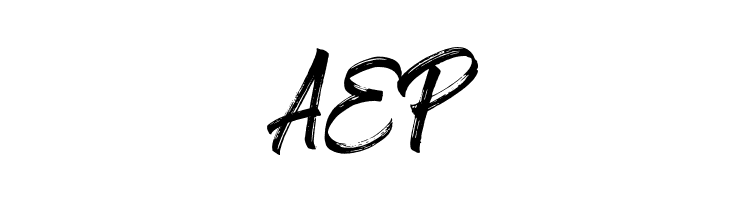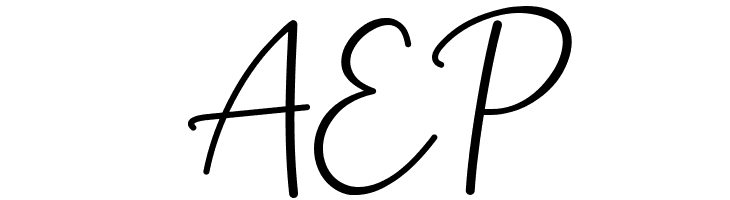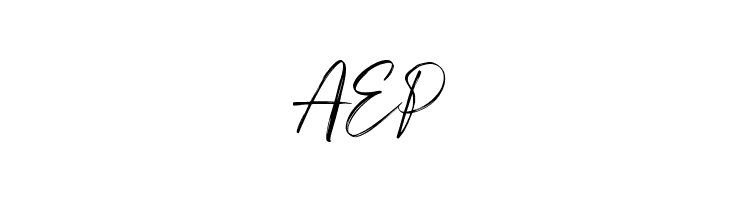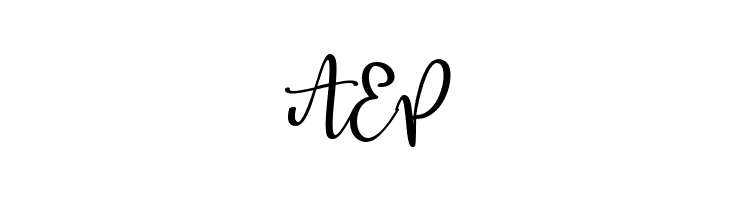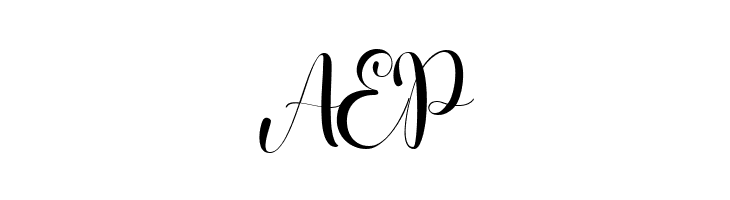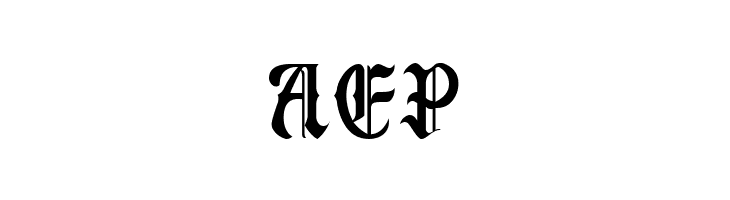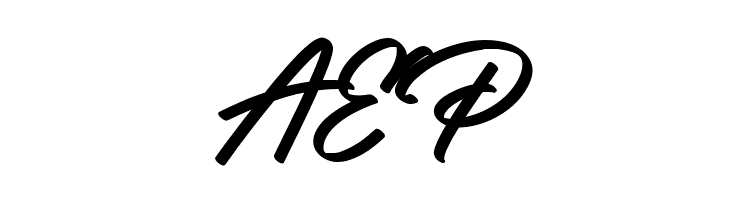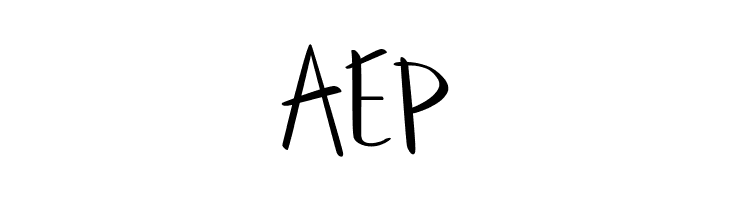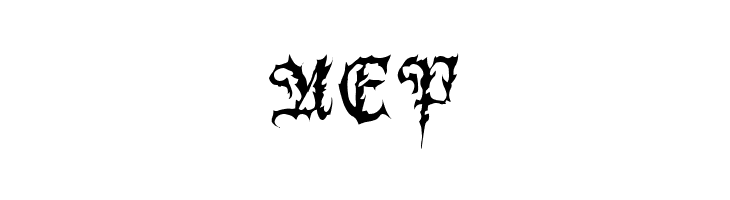
( Fonts by exe.vis.ne.jp ) A tall, narrow, hand-drawn font with thin, elongated strokes. Download 211 Downloads@WebFont
( Fonts by exe.vis.ne.jp ) A playful, hand-drawn font with tall, narrow letterforms and a whimsical style. Download 823 Downloads@WebFont
( Fonts by AEN Creative Studio - Personal-use only. For commercial use please contact owner. ) A graceful calligraphic font with elegant, flowing strokes. Download 70 Downloads@WebFont
( mlkwsn - Malik Wisnu ) A bold, geometric font with sharp angles and a modern aesthetic. Download 85 Downloads@WebFont
( Fonts by Letterena Studios - letterena.com - Personal-use only. For commercial use please contact owner. ) A bold, high-contrast serif font with a classic yet modern style. Download 29 Downloads@WebFont
( Fonts by Slametype - Galih Aprilia - Personal-use only. For commercial use please contact owner. ) A bold, flowing script font with elegant, cursive letterforms. Download 49 Downloads@WebFont
( Fonts by Gilar Studio - Personal-use only. For commercial use please contact owner. ) An elegant script font with ornate flourishes and high contrast strokes. Download 71 Downloads@WebFont
( Fonts by Yoga Letter ) A bold, decorative font with star-filled characters, perfect for playful designs. Download 97 Downloads@WebFont
( Annie Cresta ) A playful, hand-drawn font with an energetic and whimsical style. Download 80 Downloads@WebFont
( Fonts by Damarletter - Ardian Nuvianto - Personal-use only. For commercial use please contact owner. ) A modern, cursive font with interconnected letters and dynamic strokes. Download 67 Downloads@WebFont
( Jaime Rangel Castro ) A playful, handwritten font with whimsical curves and decorative elements. Download 3054 Downloads@WebFont
( Fonts by a Max Infeld - XEROGRAPHER FONTS - xerographer.blogspot.com . Personal-use only. For commercial use please contact owner. ) A bold, textured font with a distressed, grunge-like appearance. Download 176 Downloads@WebFont
( Fonts by Kurnia Setyadi ) A playful and bold font with exaggerated curves and a whimsical style. Download 235 Downloads@WebFont
( Fonts by Allouse Studio - Personal-use only. For commercial use please contact owner. ) A dynamic and elegant script font with fluid, sweeping strokes. Download 73 Downloads@WebFont
( Fonts by www.junkohanhero.com - Personal-use only. For commercial use please contact owner. ) A bold, distressed font with a vintage, industrial feel. Download 149 Downloads@WebFont
( Fonts by Prioritype Co - Prio Nurokhim Aji - Personal-use only. For commercial use please contact owner. ) A flowing, cursive script font with elegant, sweeping strokes. Download 64 Downloads@WebFont
( Fonts by Rochadi Sudarma [Rochart Studio] - Personal-use only. For commercial use please contact owner. ) A bold, brush-style font with dynamic, handwritten flair. Download 640 Downloads@WebFont
( Fonts by Manfred Klein. Free for private and charity use. Free for commercial with donation to organizations ) A collection of whimsical bird illustrations in various playful styles. Download 170 Downloads@WebFont
( Fonts by Manfred Klein. Free for private and charity use. Free for commercial with donation to organizations ) A whimsical decorative font with bird-like characters, ideal for playful projects. Download 85 Downloads@WebFont
( Fonts by Galdino Otten - galdinootten.com ) A playful, hand-drawn font with decorative, textured details. Download 484 Downloads@WebFont
( Fonts by Galdino Otten - galdinootten.com ) A playful, hand-drawn italic font with decorative lines and medium contrast. Download 106 Downloads@WebFont
( Fonts by David Espinosa [Type Sailor] - www.facebook.com/typesailor - Personal-use only. For commercial use please contact owner. ) An ornate and decorative font with intricate details and flourishes. Download 97 Downloads@WebFont
( Fonts by Kong Font - Personal-use only. For commercial use please contact owner. ) A gothic, dripping font with sharp edges and a haunting aesthetic. Download 63 Downloads@WebFont
( Fonts by Kong Font - Personal-use only. For commercial use please contact owner. ) An intricate, ornamental font with gothic and tribal influences. Download 24 Downloads@WebFont
( Fonts by Kong Font - fontkong.com - Personal-use only. For commercial use please contact owner. ) A bold, gothic font with sharp, thorn-like edges and a dramatic style. Download 72 Downloads@WebFont
( Fonts by Rochadi Sudarma [Rochart Studio] - Personal-use only. For commercial use please contact owner. ) A bold, brush-style font with a dynamic, hand-painted appearance. Download 86 Downloads@WebFont
( Fonts by Rafantype Studio - Ahmad Saiful Mutohhar - Personal-use only. For commercial use please contact owner. ) A playful, handwritten font with uneven strokes and a casual style. Download 46 Downloads@WebFont
( Fonts by Kong Font - Personal-use only. For commercial use please contact owner. ) A bold, high-contrast blackletter font with intricate, gothic-inspired details. Download 49 Downloads@WebFont
( Fonts by Manfred Klein. Free for private and charity use. Free for commercial with donation to organizations ) An artistic, image-based decorative font with linocut illustration style. Download 710 Downloads@WebFont